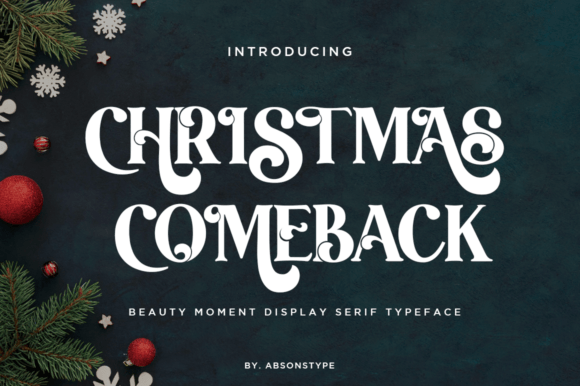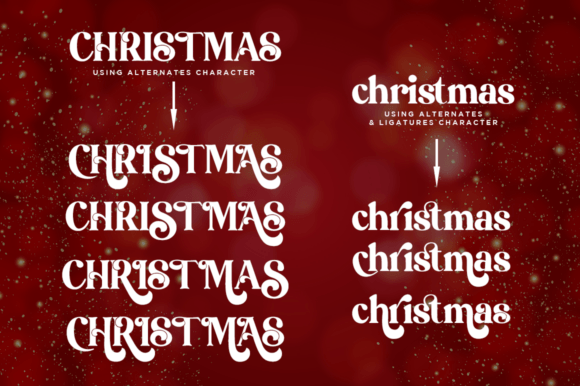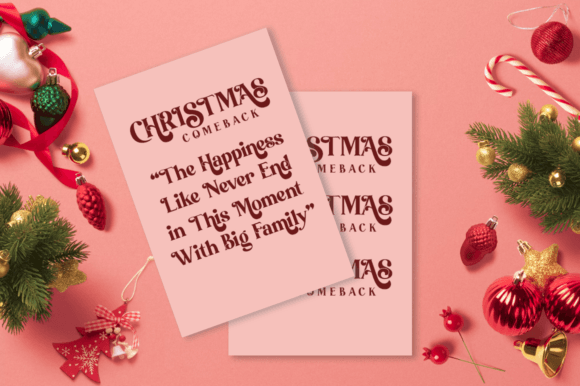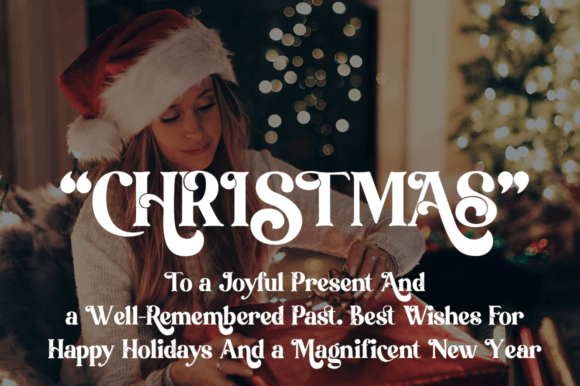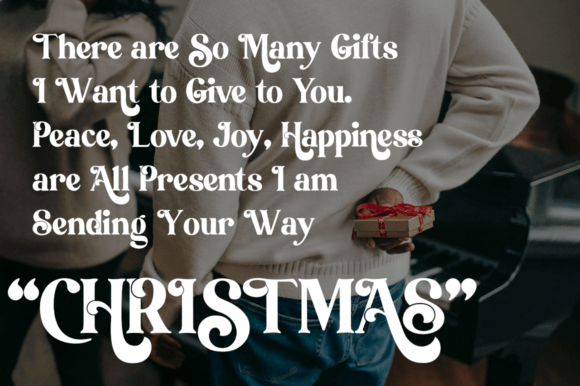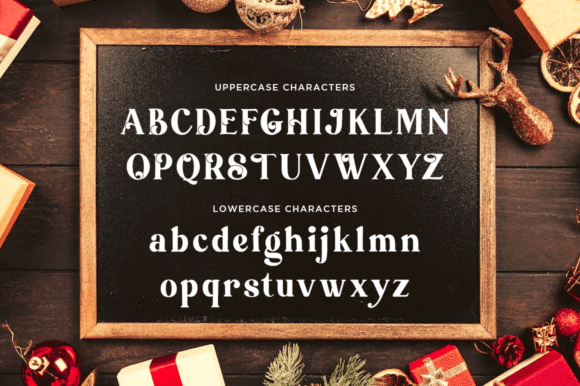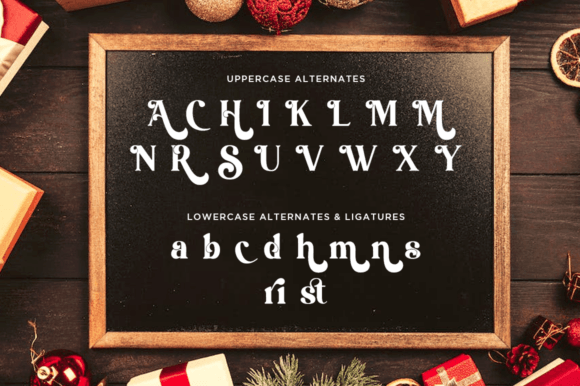
The Perfect Font to Get You in the Holiday Spirit
As the holiday season approaches, many of us are scrambling to create the perfect designs for our loved ones, friends, and even our favorite brands. Whether it’s a festive holiday card or a gift for a special someone, we want our designs to shine with a touch of holiday magic. And that’s exactly where the Christmas Comeback Font comes in – a beautiful Serif display typeface that’s sure to add a dash of cheer to any design project.
This versatile font is designed to bring balance and polish to your designs, with a combination of uppercase and lowercase letters that work seamlessly together. With alternates and ligatures in various styles, the Christmas Comeback Font is perfect for everything from headlines and logos to posters, packaging, and even T-shirts. As a designer, you’ll appreciate the value this font brings to your projects – a professional, eye-catching look that’s sure to impress.
Christmas Comeback Font Key Features
- Font Family: Christmas Comeback is a unique and festive font family designed to evoke the spirit of the holiday season.
- Unique Characteristics: Features a mix of modern and classic elements, with intricate details and ornaments that add a touch of magic to any design.
Designer Review: Christmas Comeback Font
Overall, I think the Christmas Comeback Font has some great qualities, but it also has some limitations that might make it less appealing to some designers. ✨
- Playful and whimsical feel: The font has a lovely, carefree vibe that’s perfect for festive designs.
- Unique characters: The font includes a range of unique characters, such as ornaments and symbols, that can add a lot of personality to your designs.
- Good legibility: Despite its playful feel, the font is still easy to read and understand, even at smaller sizes.
- Overly reliant on ornaments: While the unique characters are a great feature, they can also make the font feel overly cluttered and difficult to read if used excessively.
- Limited font weights: The font only comes in a few weights, which can make it difficult to create a consistent look across different elements of your design.
- Not suitable for body text: Due to its playful feel and limited legibility at smaller sizes, I wouldn’t recommend using this font for body text or any other long-form content.
Overall impression:
Overall, I think the Christmas Comeback Font is a fun and unique addition to any designer’s toolkit. While it may have some limitations, it’s perfect for short-form content or designs where you want to add a playful touch. Just be sure to use it thoughtfully and in moderation!
To get the most out of Christmas Comeback Font, use it for:
Christmas-themed designs, invitations, and cards.
Winter wonderland-themed graphics and illustrations.
Text overlays for holiday photos and videos.
Remember to experiment with different font sizes, colors, and combinations to achieve the desired effect.